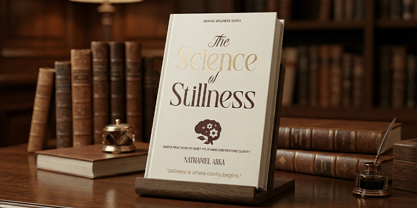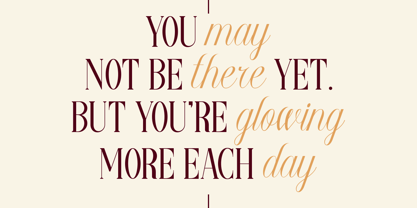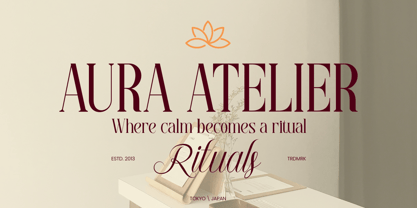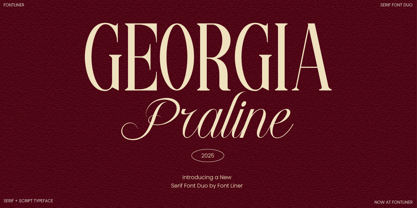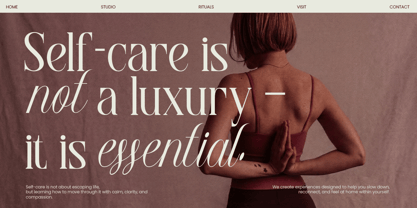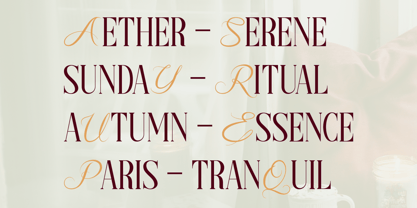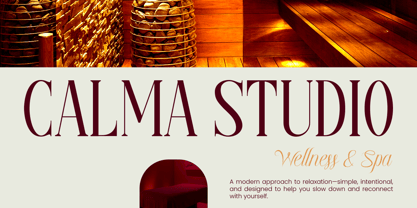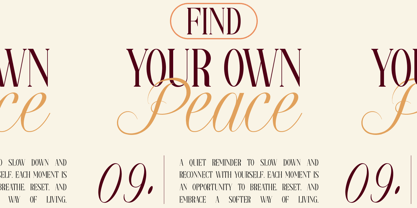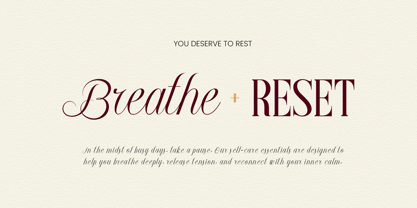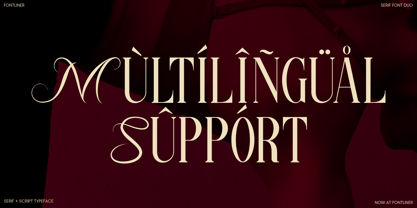
Georgia Praline Script
by Font Liner
The Georgia Praline Script Font Family was designed by Ghina Luthfiarieska and published by Font Liner. Georgia Praline Script contains 3 styles and family package options. More about this family
Georgia Praline is a sophisticated serif font duo that seamlessly blends classic elegance with a graceful script touch. This typeface is designed to create a harmonious pairing, combining a refined serif with a flowing handwritten style, resulting in a timeless and luxurious visual identity. The contrast between structure and fluidity gives it a distinctive charm that feels both modern and classic. Perfect for branding, wedding designs, editorial layouts, and premium packaging, Georgia Praline brings a romantic and high-end aesthetic to any project. The serif offers clarity and authority, while the script adds personality and softness—making it ideal for logos, invitations, and stylish typography compositions. With its versatile duo system, Georgia Praline allows designers to explore creative combinations effortlessly. Whether used together or separately, it ensures a cohesive and elegant look, making it a powerful choice for projects that require both sophistication and artistic flair.
Designers: Ghina Luthfiarieska
Foundry: Font Liner